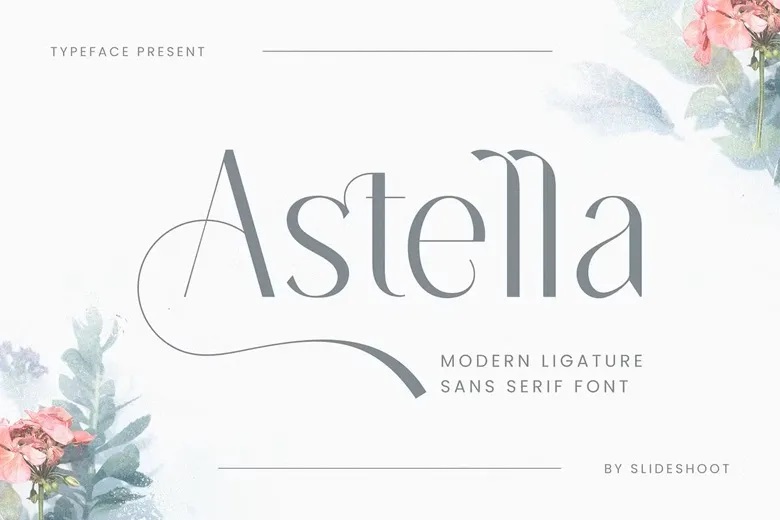
Astella Sans Font
Astella provides a balanced, smooth, elegant and stylish sans serif font. He has a beautiful character. It fits perfectly with invitation card designs, company logos, movie titles, movie name, business cards, book titles, brand names and variety of other designs.
Astella is a friend of the subtle sans serif font and exudes sophistication and elegance. Its stylish alternations and ligatures make this font the perfect partner for any project.
Astella Sans Serif Font